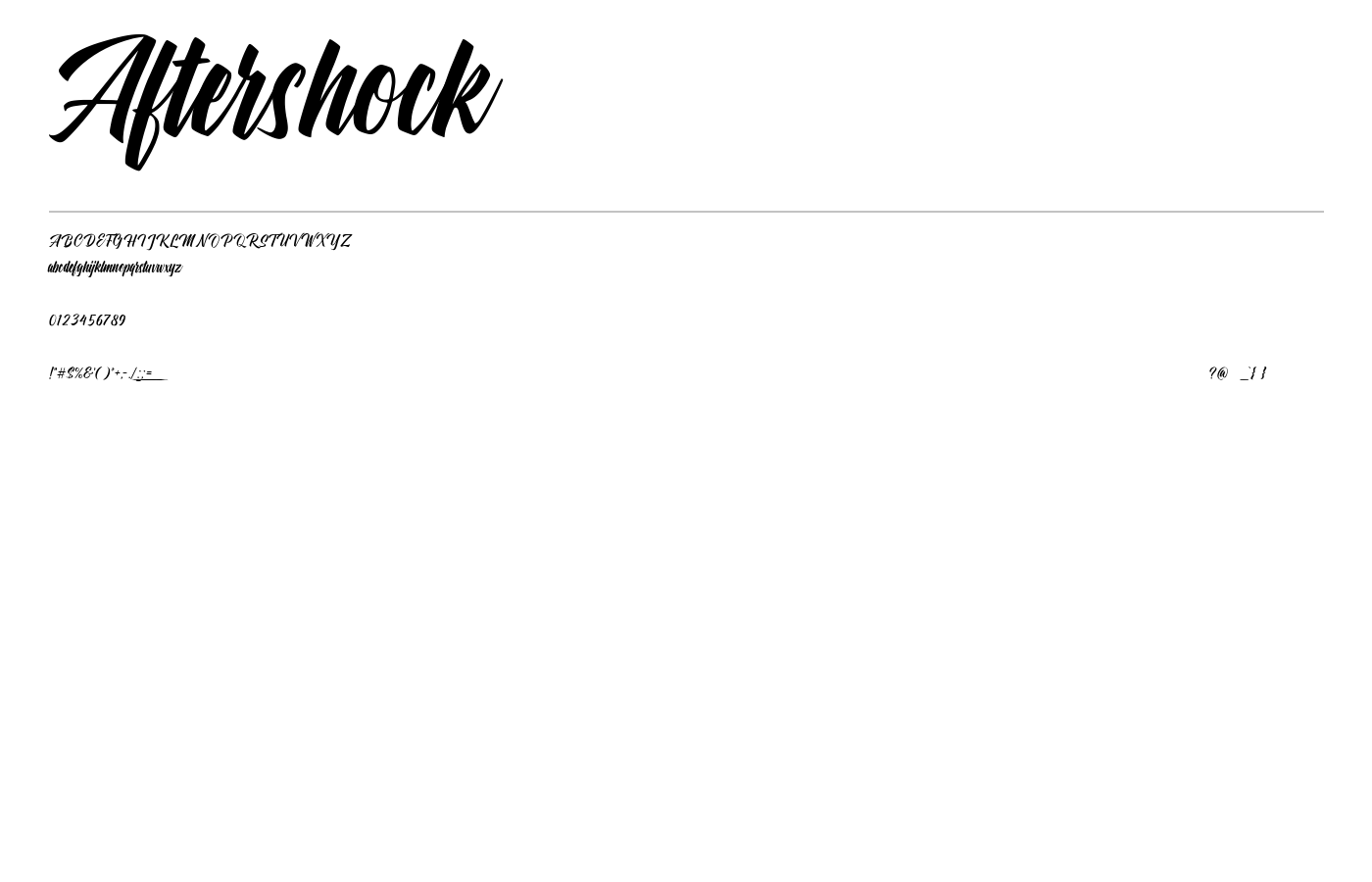
Aftershock is a bold, expressive script font with a dynamic, handwritten style that feels lively and energetic. Its high contrast strokes and smooth, flowing curves give it a modern yet approachable personality, ideal for branding, logos, and creative projects that need a personal, impactful touch. This font works well in headlines and invitations where a stylish, casual elegance is desired.
Aftershock Font
About Aftershock Font
| Font family | Aftershock Font |
| Designer | Octotype |